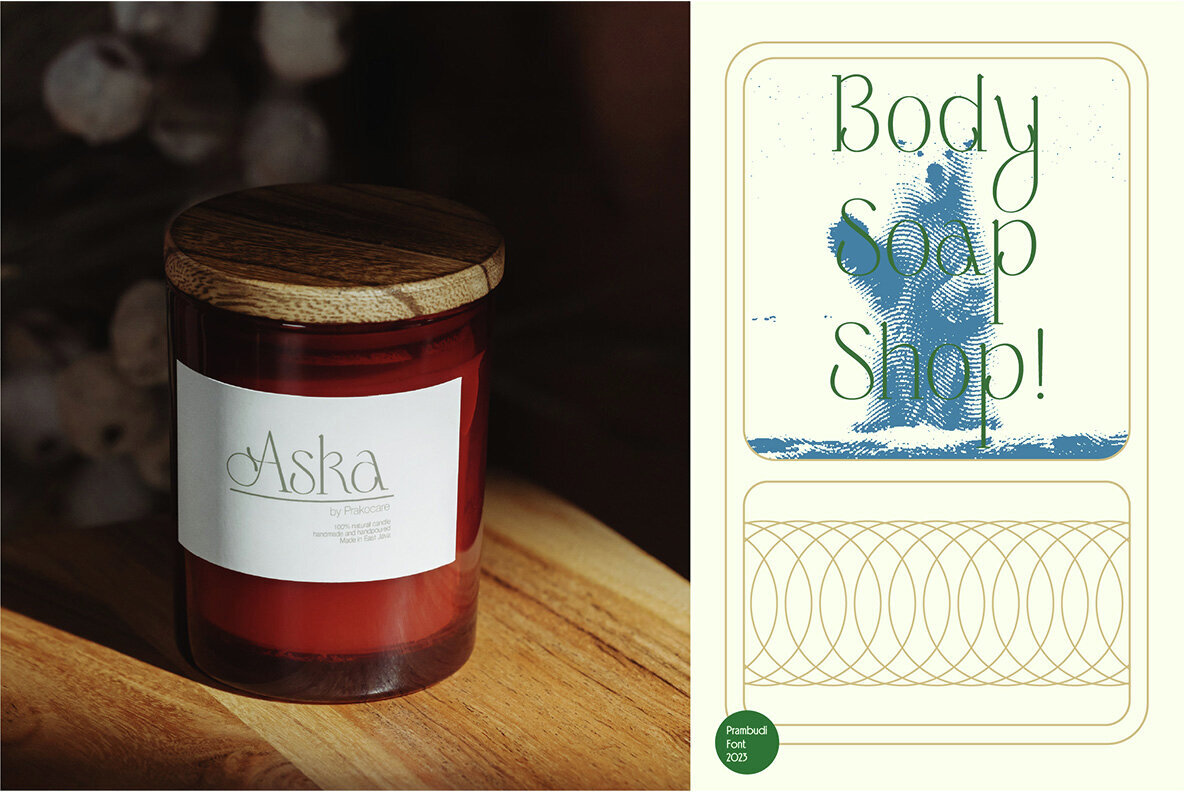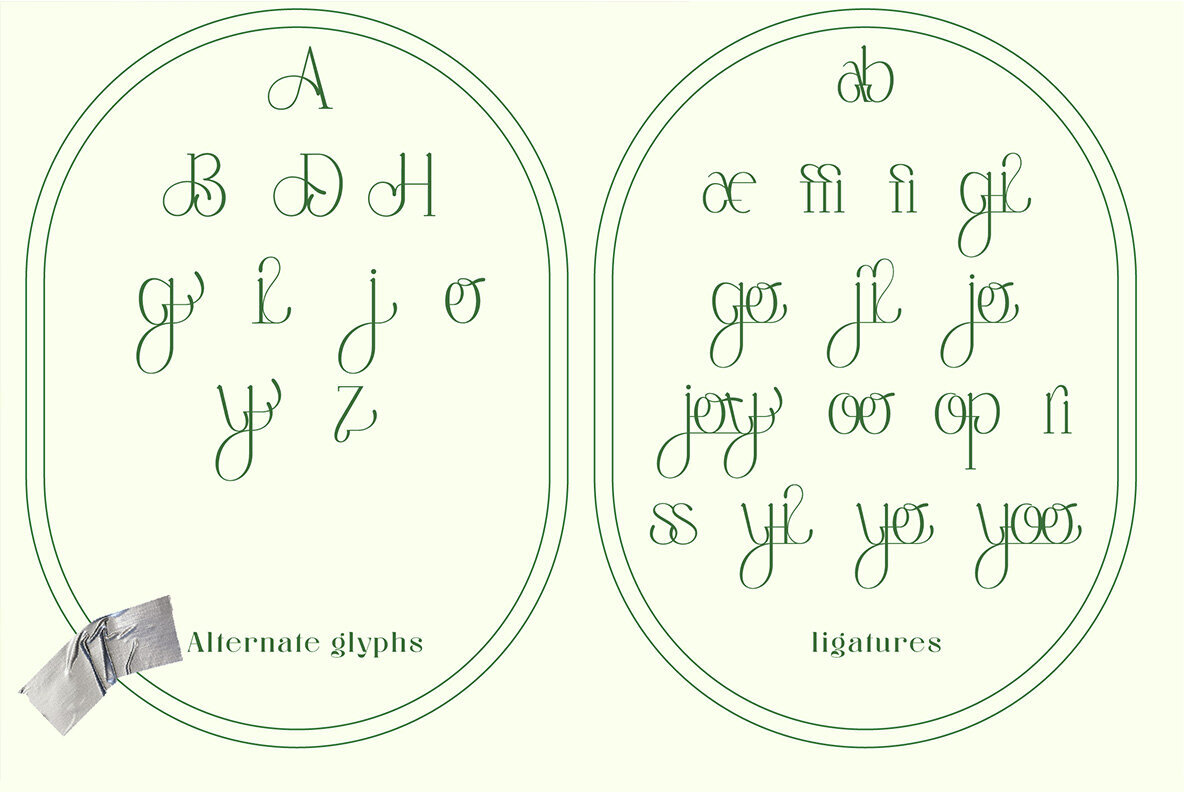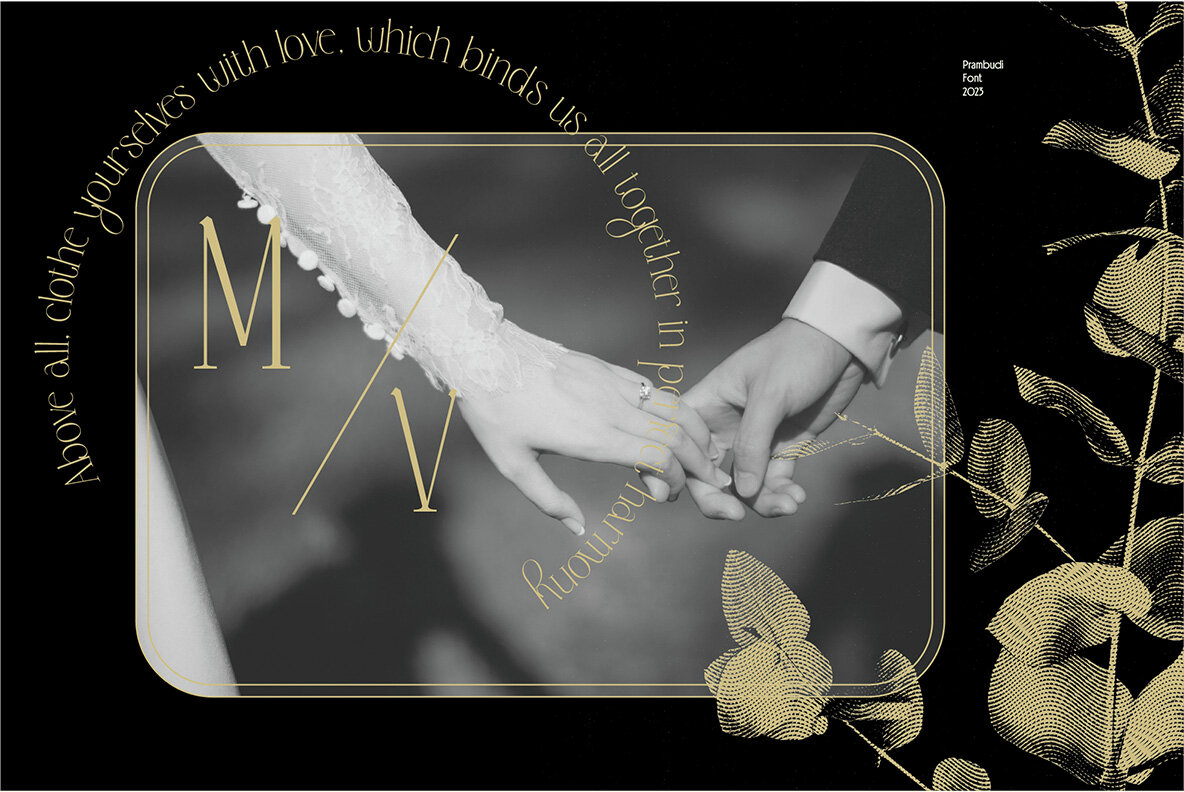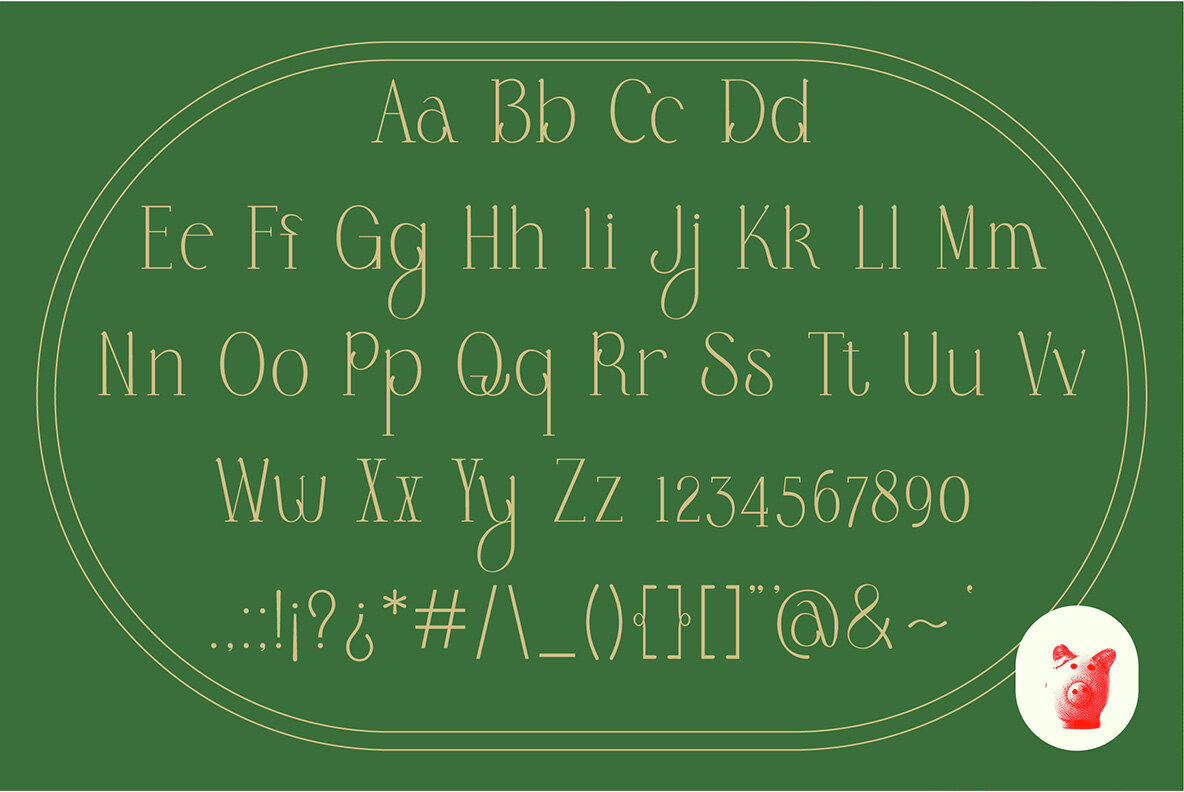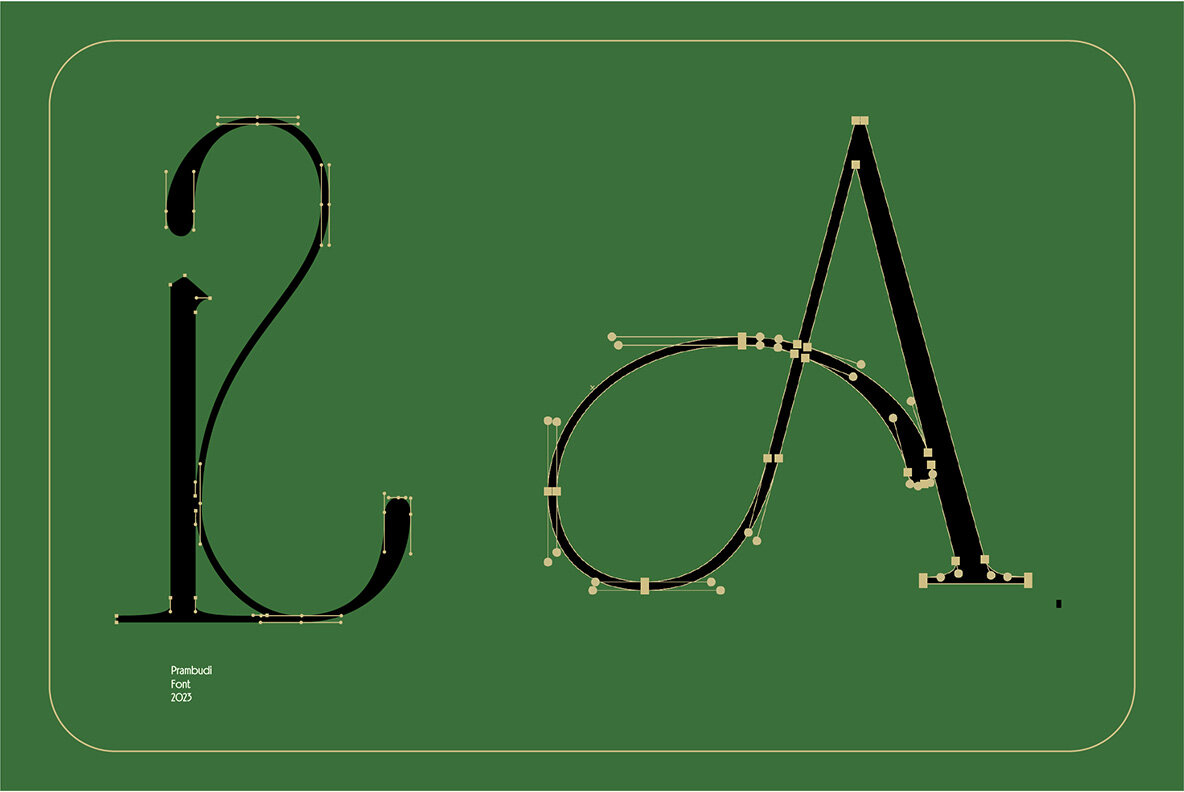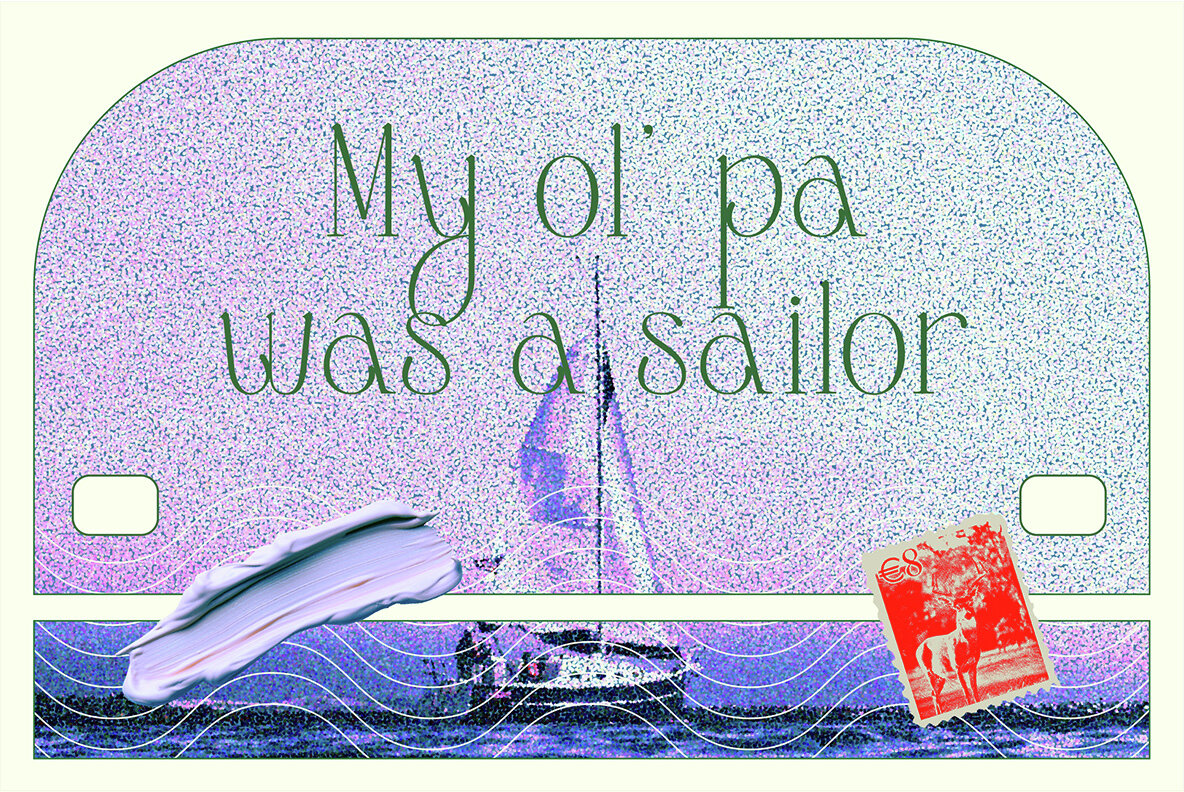
Georga Font
Georga Regular
Georga is a serif display typeface that masterfully combines the timeless elegance of classic serif fonts with the fluidity of calligraphy. With refined, sweeping curves and intricate details, Georga captures the artistry of hand-lettered script while maintaining the structure and readability of traditional serif typography. Ideal for luxury branding, sophisticated invitations, or editorial designs that demand attention, this typeface brings a touch of sophistication and expressive flair to any project.
Perfect for those creating high-end designs, Georga enhances your work with its unique blend of traditional and creative elements. Its detailed curves and elegant strokes make it a versatile choice, whether for print or digital formats. With Georga, design projects achieve a perfect balance of tradition and modernity, delivering visually stunning results that are both readable and memorable.